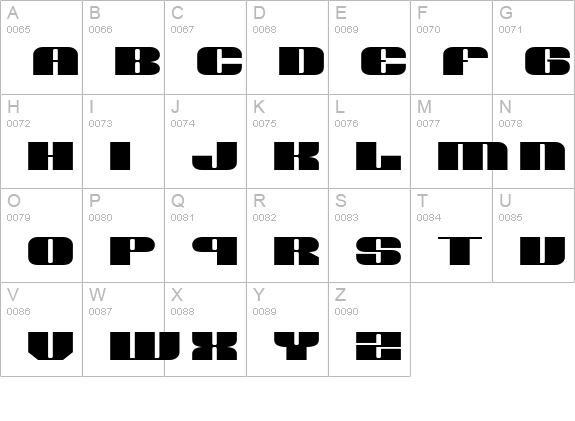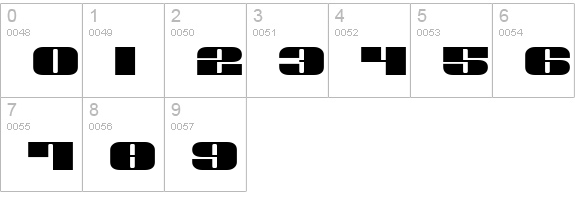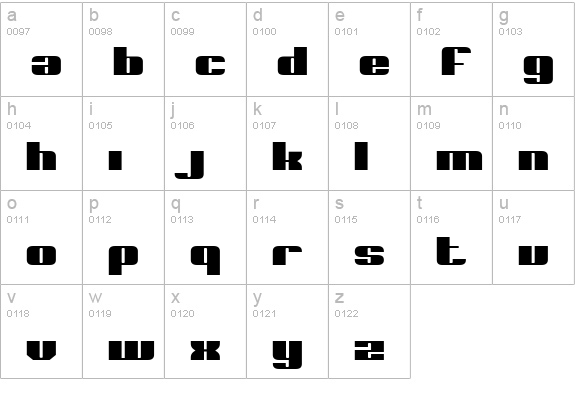
Nolo Contendre Expanded is a distinctive, extended-width variant in the Nolo typeface family \xE2\x80\x94 well suited to design and typography projects.
Introducing Nolo Contendre Expanded font, a striking and versatile typeface designed to make a statement. With its bold and modern appearance, this font is perfect for creating eye-catching designs that demand attention. The Nolo Contendre Expanded font features an expanded version that adds an extra touch of uniqueness and sophistication to your projects. What sets Nolo Contendre Expanded font apart is its seamless blend of elegance and boldness, making it ideal for a wide range of design applications. Whether you're working on a poster, logo, branding, or any other project that requires a strong visual impact, this font is sure to deliver. Best of all, Nolo Contendre Expanded font is available for free download at FontsMarket.com. So, if you're looking to add a touch of creativity and flair to your designs without breaking the bank, be sure to check out this stunning font. Download Nolo Contendre Expanded today and take your designs to the next level!